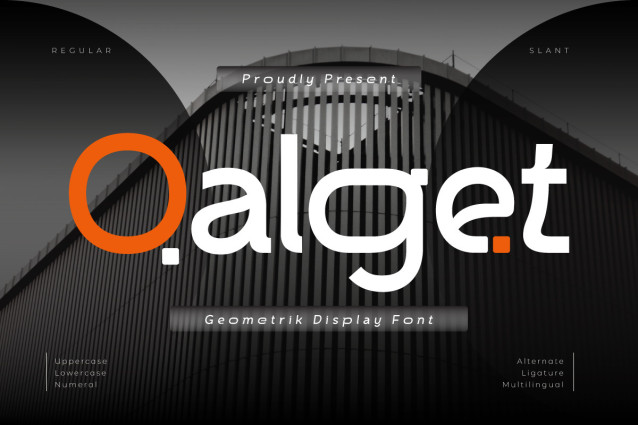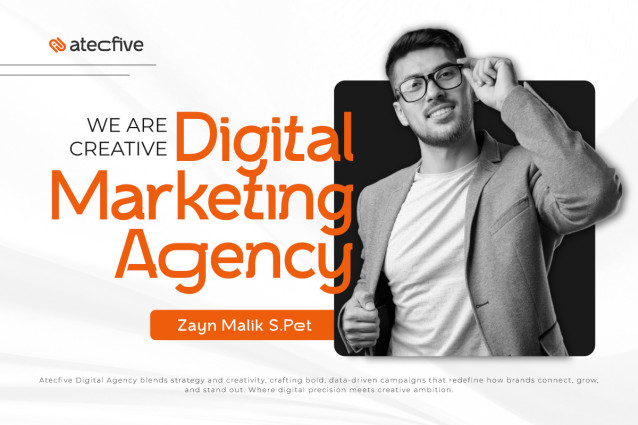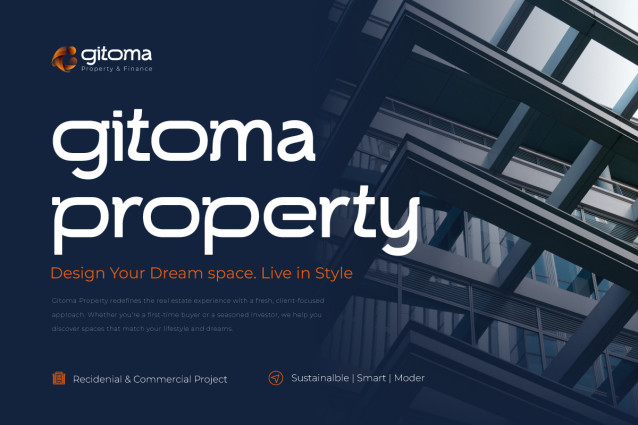
Qalget Font
Qalget Font is a sleek and minimalist geometric logo font designed to deliver clarity, balance, and modern style in every letterform. Built with precision and symmetry, Qalget features clean lines and strong shapes—making it the ideal choice for branding, tech startups, product packaging, fashion labels, or modern editorial layouts.
This font offers a harmonious blend of simplicity and sophistication, allowing your brand to appear both professional and contemporary. Each character is carefully designed to ensure legibility while maintaining a unique, architectural identity—making Qalget especially powerful in logo applications and large headline use.
If you’re looking to create a lasting visual impression with a smart, geometric aesthetic, Qalget is the perfect typeface to give your brand a bold, timeless voice.